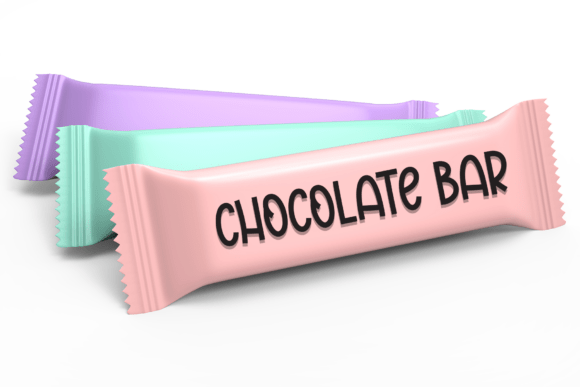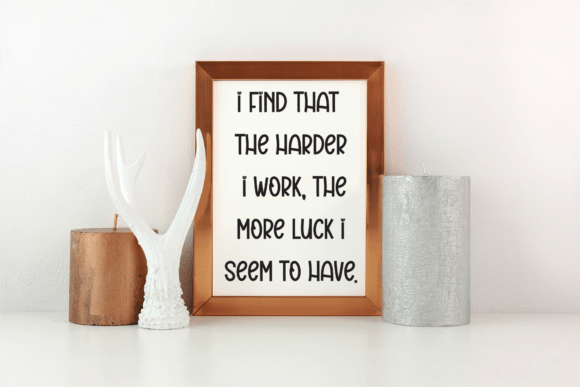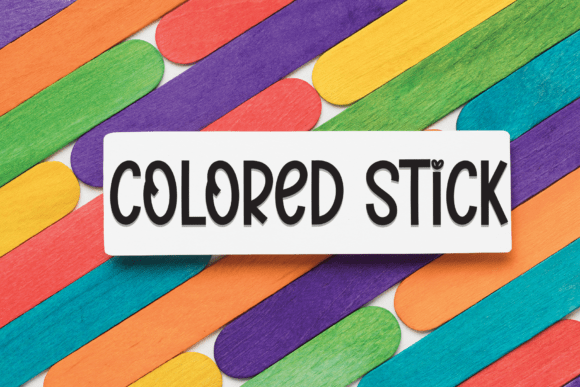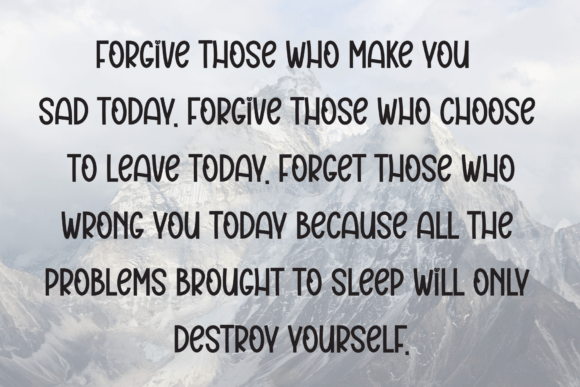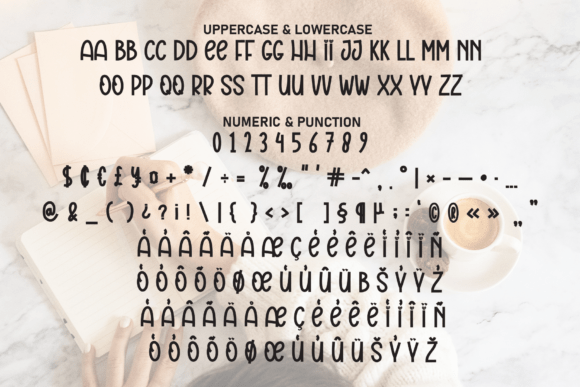
Baby Planner Font: The Perfect Choice for Moms, Planners, and Cute Branding
Are you a designer, crafter, or mom looking for a font that’s both creative and clean? Look no further than the Baby Planner Font! Designed with moms, planners, and cute branding in mind, this display font is perfect for a variety of projects, from baby journals and nursery designs to mommy blogs and kid-focused logos.
What Makes Baby Planner Font So Special?
Baby Planner Font is a unique and charming font that’s sure to capture the hearts of designers and crafters alike. With its bold strokes and fun shapes, this font is ideal for creating eye-catching and engaging designs that are perfect for moms and kids. Whether you’re creating a baby journal, designing a nursery, or building a mommy blog, Baby Planner Font is the perfect choice.
Key Features of Baby Planner Font
- Creative and Clean Design: Baby Planner Font features a creative and clean design that’s perfect for a variety of projects.
- Bold Strokes and Fun Shapes: The font’s bold strokes and fun shapes make it ideal for creating eye-catching and engaging designs.
- Simple and Modern: Despite its bold and playful design, Baby Planner Font is simple and modern, making it perfect for a wide range of projects.
- Full of Charm: This font is full of charm and character, making it perfect for designers and crafters who want to add a personal touch to their projects.
Baby Planner Font is perfect for a wide range of projects, including:
- Baby Journals: Create beautiful and engaging baby journals that are perfect for moms and dads.
- Nursery Designs: Design stunning nursery walls and decor with Baby Planner Font.
- Mommy Blogs: Add a personal touch to your mommy blog with this charming font.
- Kid-Focused Logos: Create fun and engaging logos for kids’ products and services.
Why Choose Baby Planner Font?
There are many reasons why designers and crafters choose Baby Planner Font for their projects. Here are just a few:
- Unique and Charming Design: Baby Planner Font features a unique and charming design that’s sure to stand out.
- Easy to Read: Despite its bold and playful design, Baby Planner Font is easy to read, making it perfect for a wide range of projects.
- Versatile: This font is versatile and can be used for a wide range of projects, from baby journals to kid-focused logos.
- High-Quality: Baby Planner Font is a high-quality font that’s designed to deliver exceptional results.
Tips for Using Baby Planner Font
- Use it for Headings: Baby Planner Font is perfect for headings and titles, where its bold and playful design can really shine.
In conclusion, Baby Planner Font is a creative and clean display font that’s perfect for designers, crafters, and moms looking for a unique and charming font for their projects. With its bold strokes, fun shapes, and simple, modern design, this font is ideal for a wide range of projects, from baby journals and nursery designs to mommy blogs and kid-focused logos. So why wait? Download Baby Planner Font today and start creating beautiful and engaging designs that are sure to capture the hearts of moms and kids alike!